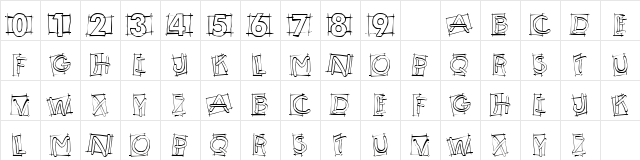
101! Weenie Display Regular
Design Context for 101! Weenie Display Typeface
101! Weenie Display brings ornamental detail and strong personality to headlines and identities, where visual impact matters more than quiet functionality.
Font Pairing: Pair with a clean neutral sans-serif for body copy to let 101! Weenie Display's character lead without overwhelming the composition.
Pro Tip: Use 101! Weenie Display exclusively at display sizes — it was designed to be seen, not read at length. Let a neutral companion handle body copy.